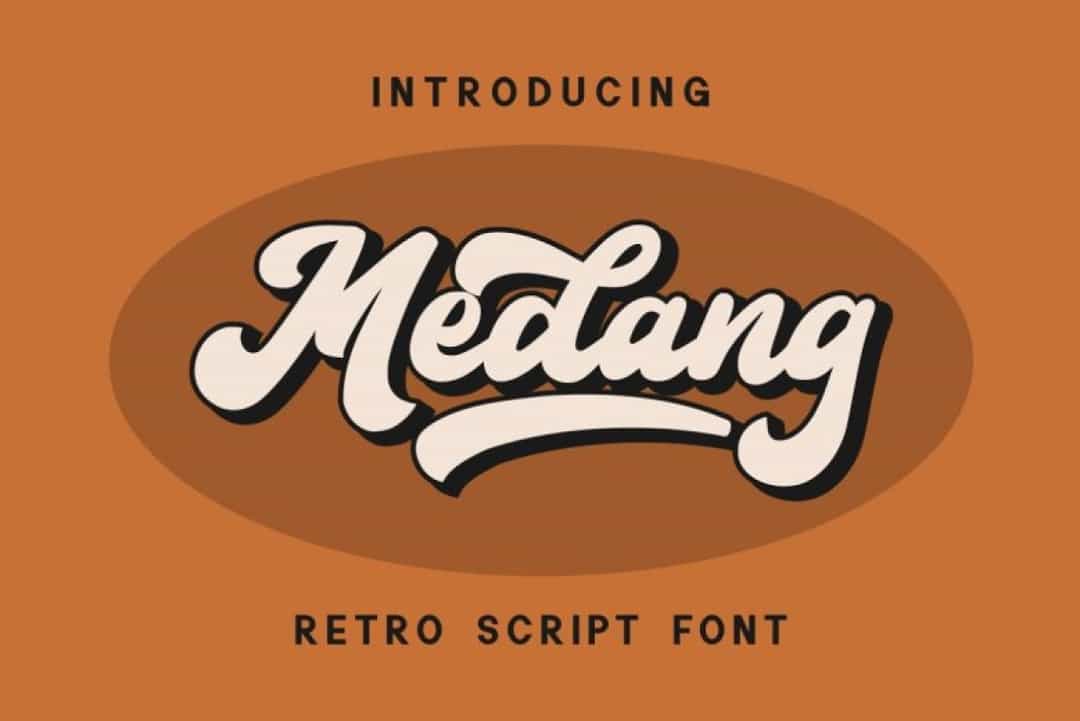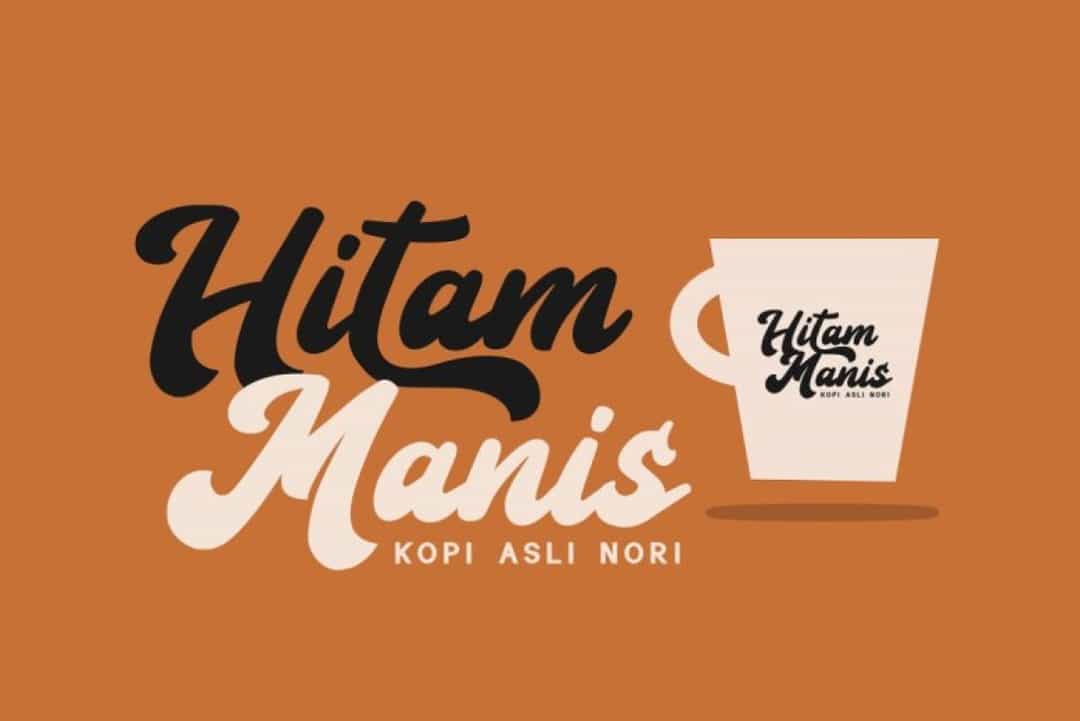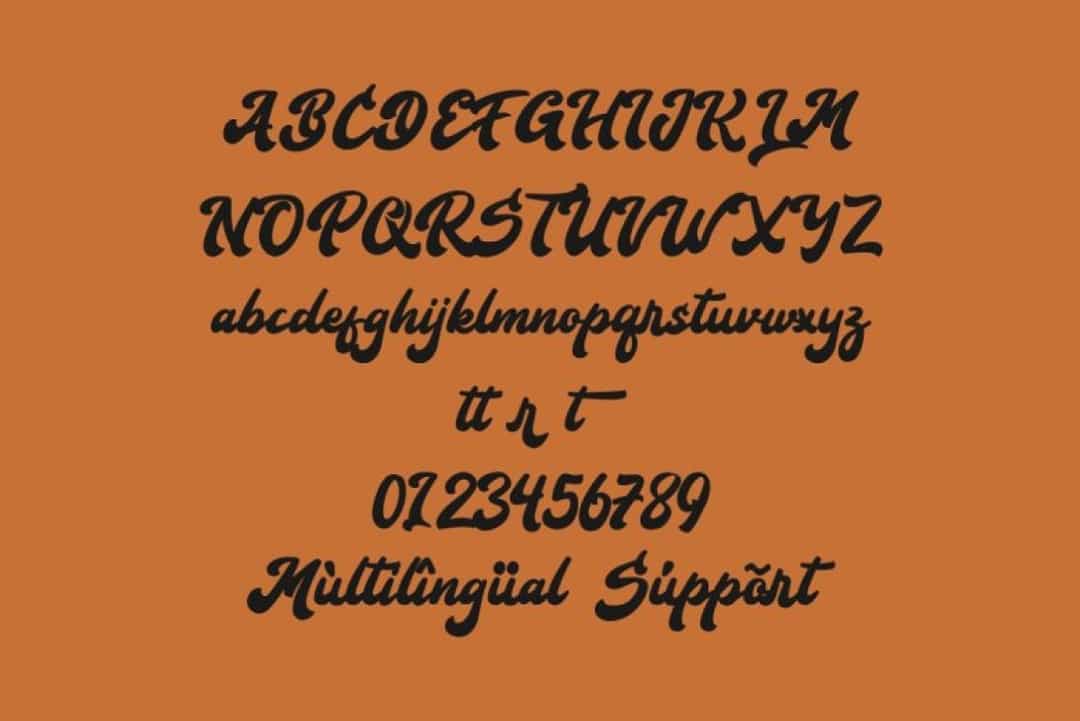
Medang is a bold retro script font. This font is perfect for any design project that requires retro script fonts, Open type features include small caps, positional numerals, fractions, superior & inferior figures, and alternate forms.